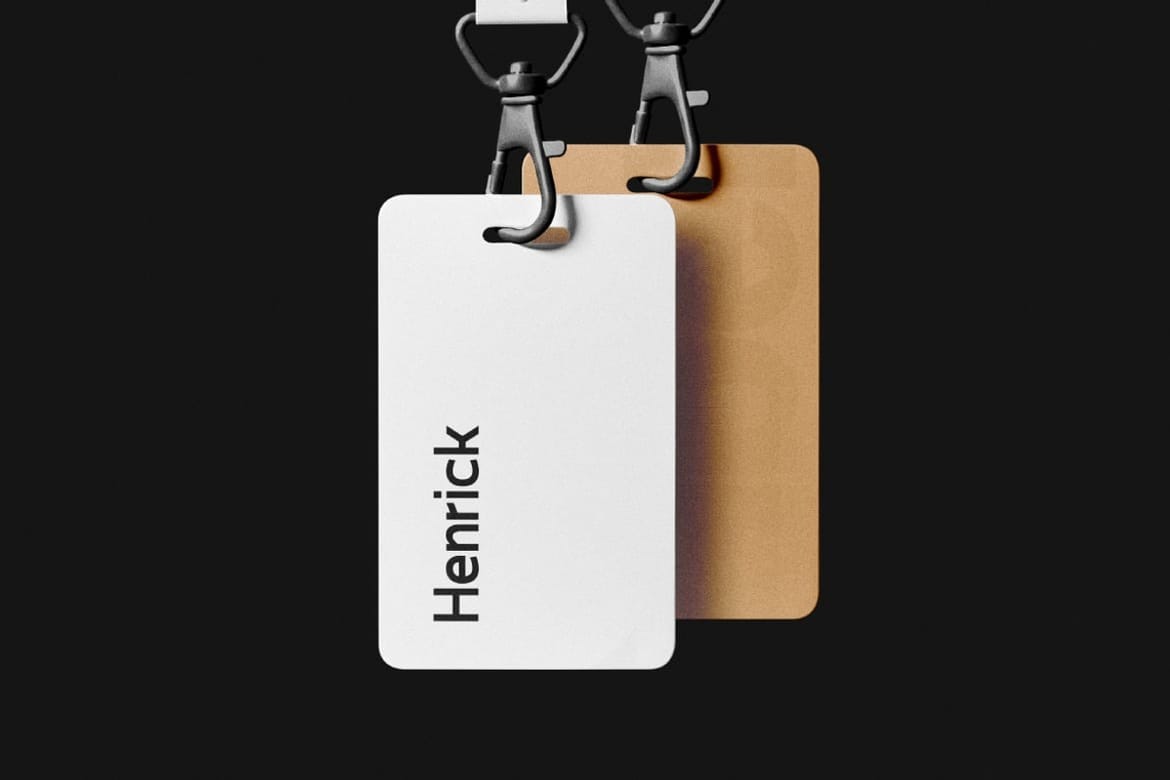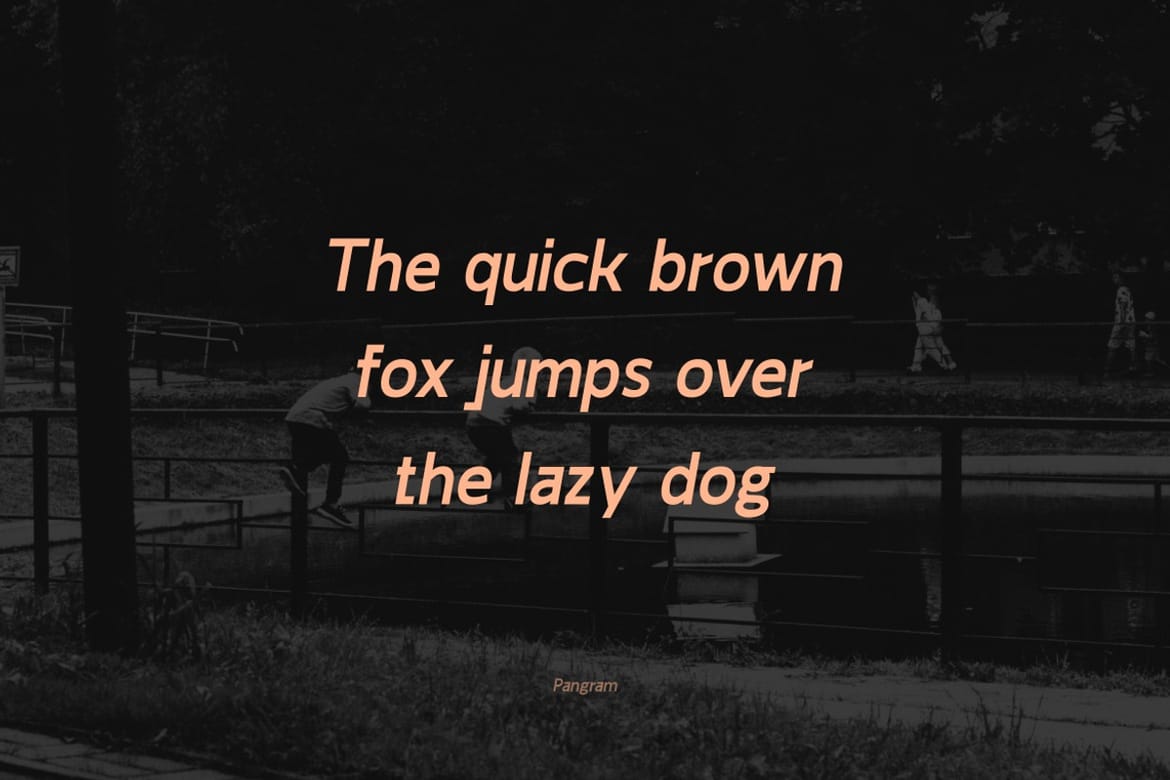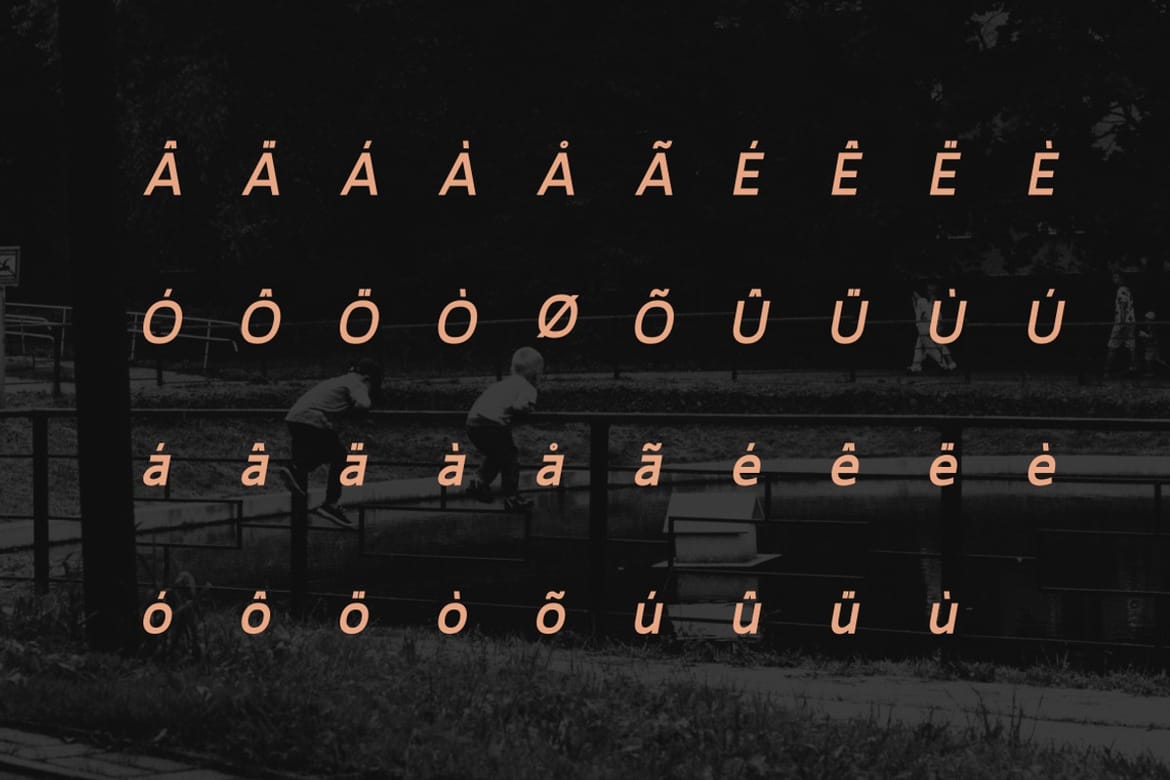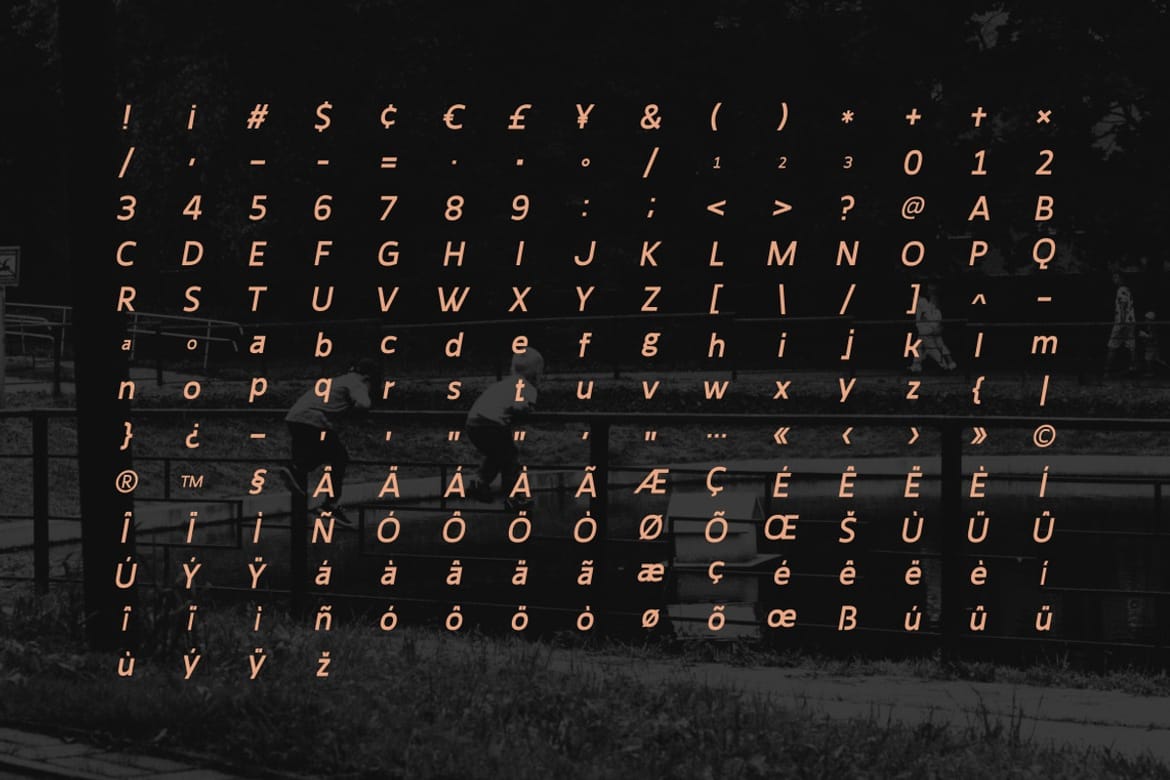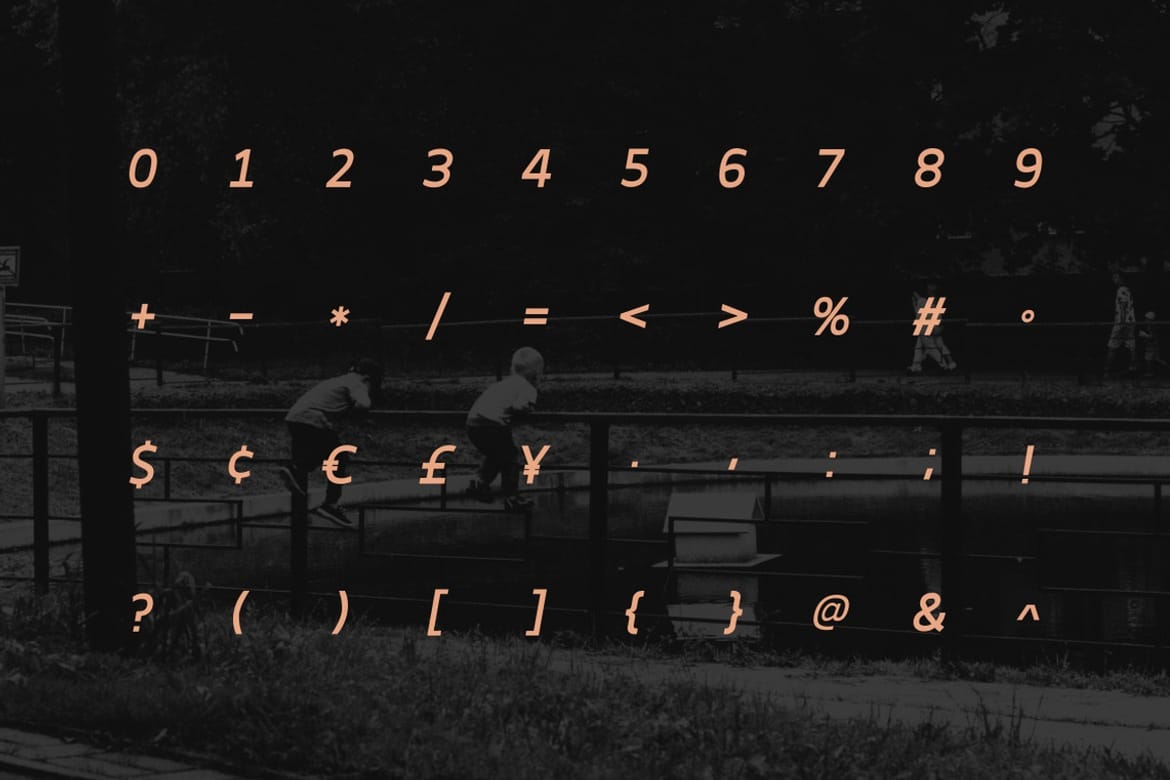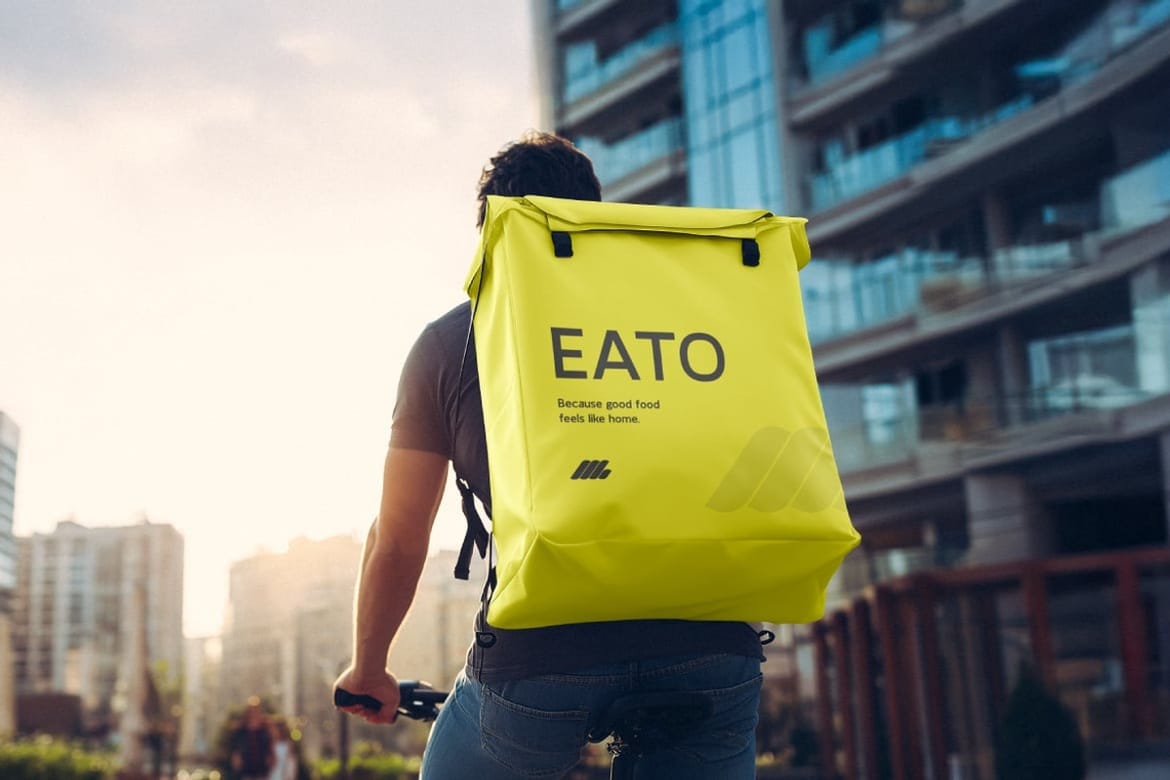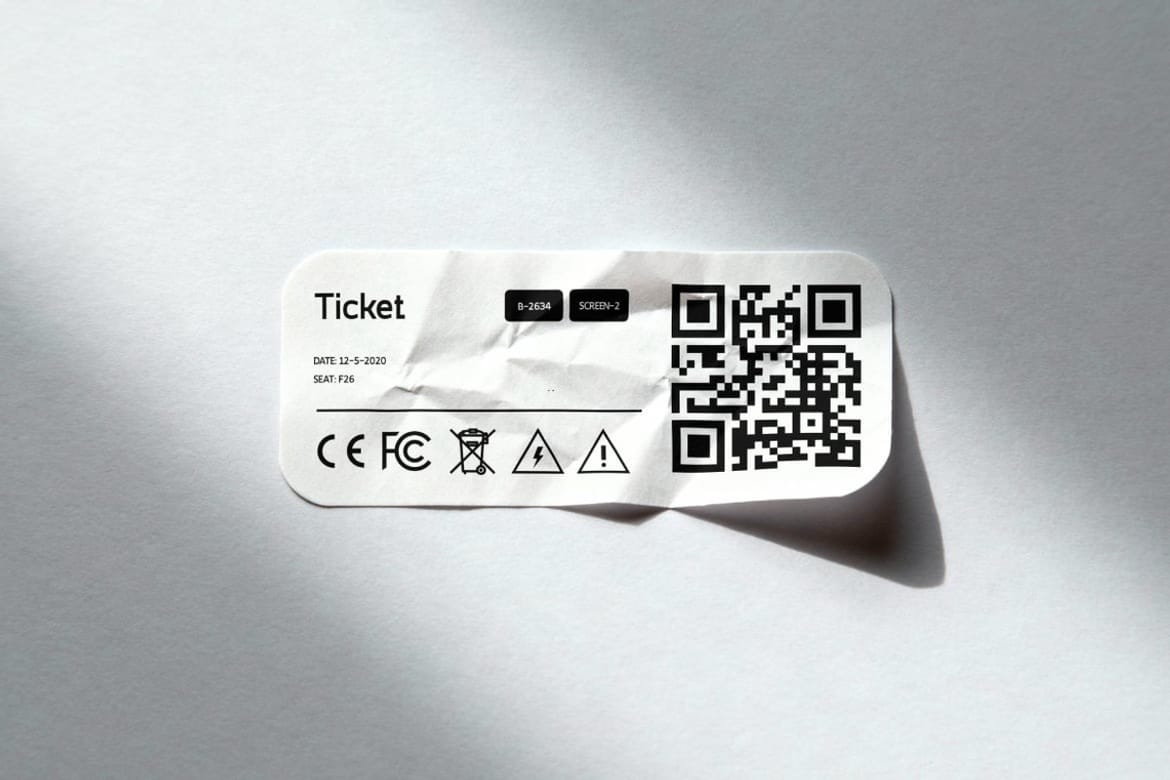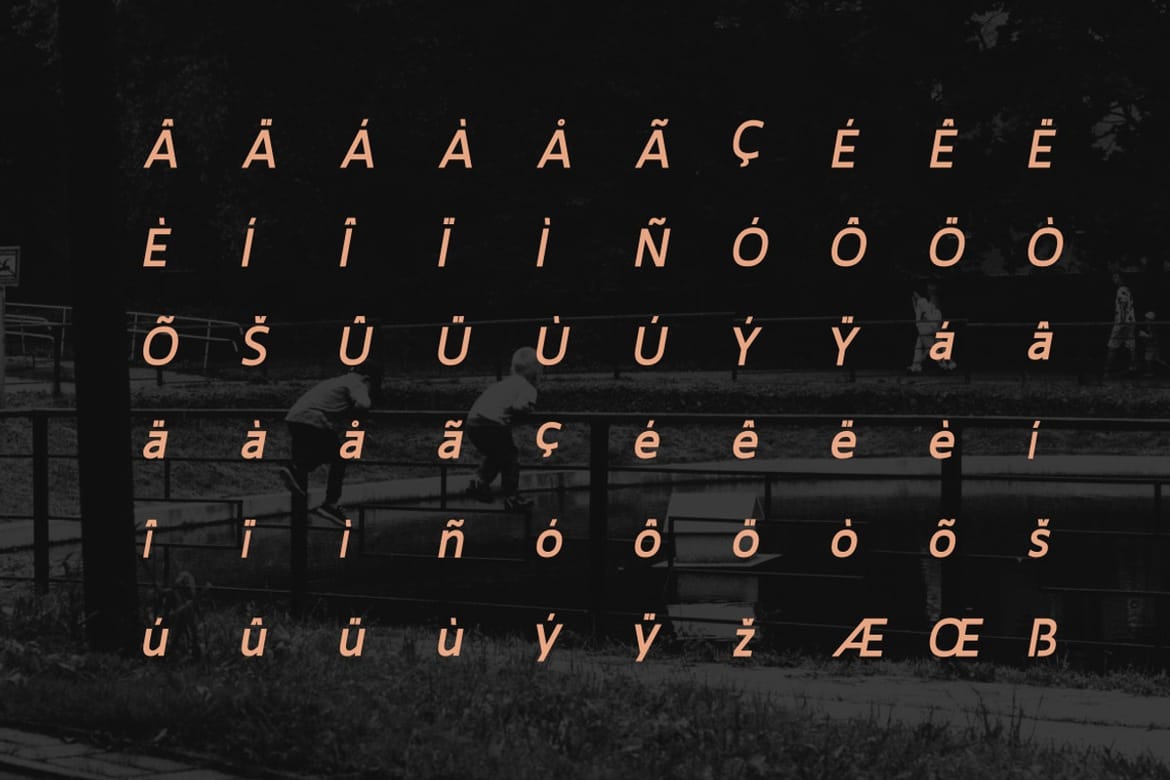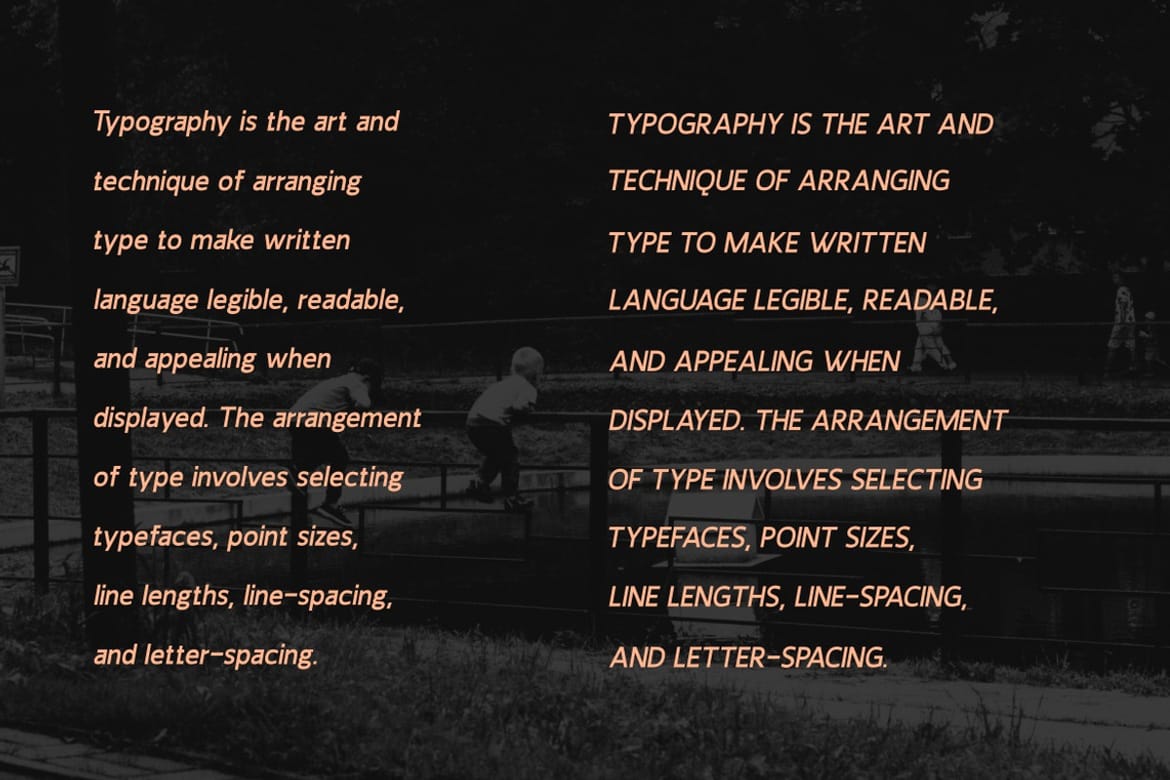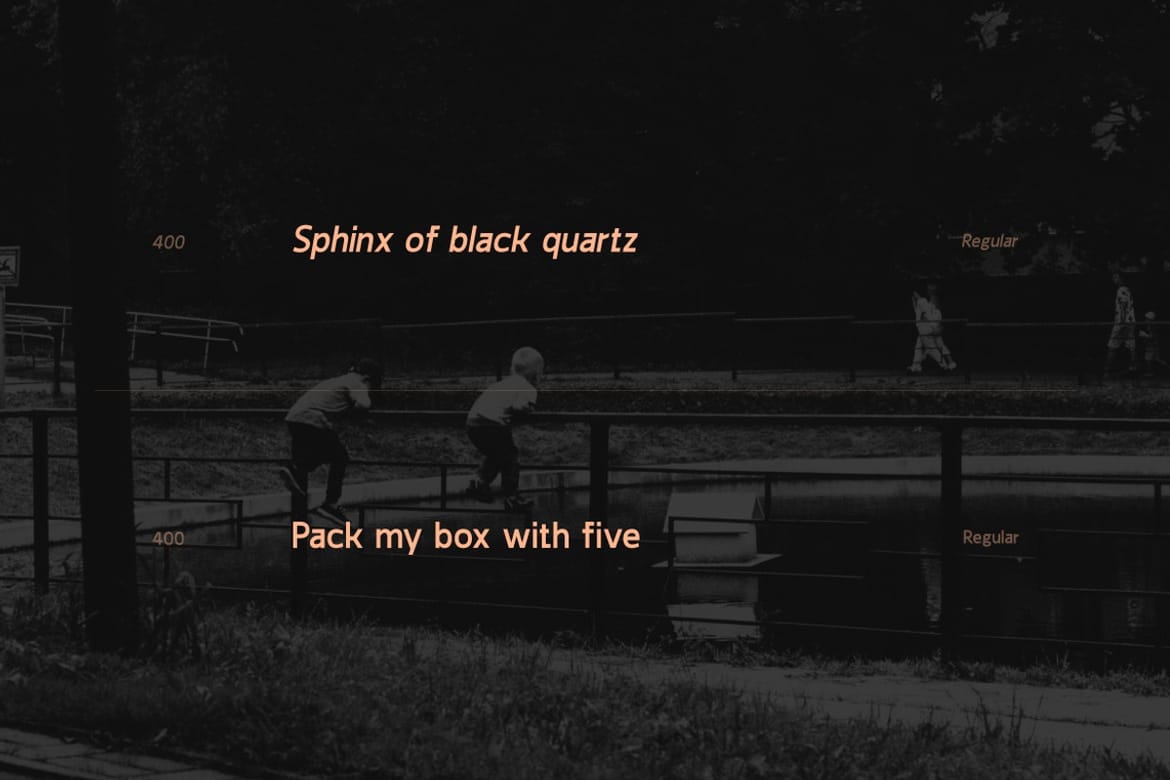
Relay is a bold and modern display sans-serif font designed for high-impact visuals. With its clean lines, geometric proportions, and striking presence, Relay is perfect for branding, headlines, social media, and editorial design. Its contemporary aesthetic balances professionalism with creativity, making it versatile for both digital and print projects. Featuring uppercase, lowercase, numbers, and punctuation, Relay ensures clarity and style in every composition.
Uppercase letters
Lowercase letters
Numbers
Punctuations
- High-impact display font
- Digital and print versatile